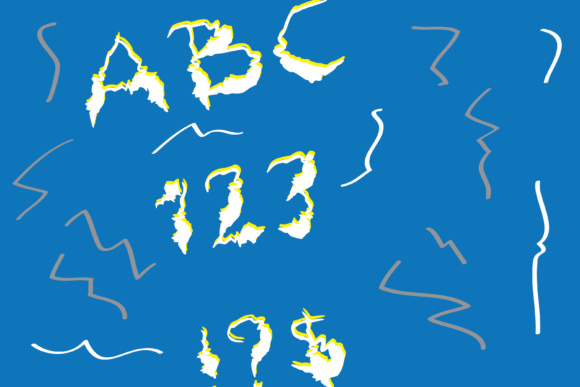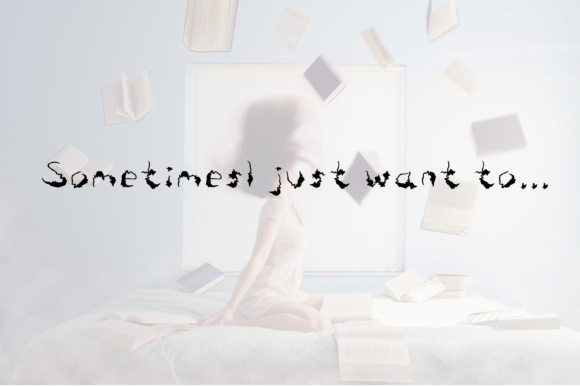
Introduction to I Am OK Font
The non-functioning of this font is defiantly in question.
It looks rather unhinged and defiantly on the edge Create a zany messed up look to your designs with this unstable crazy looking typeface.